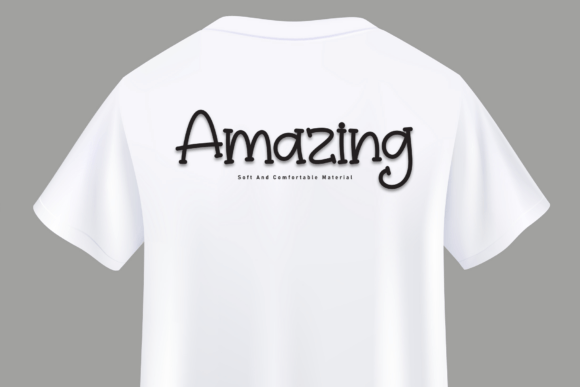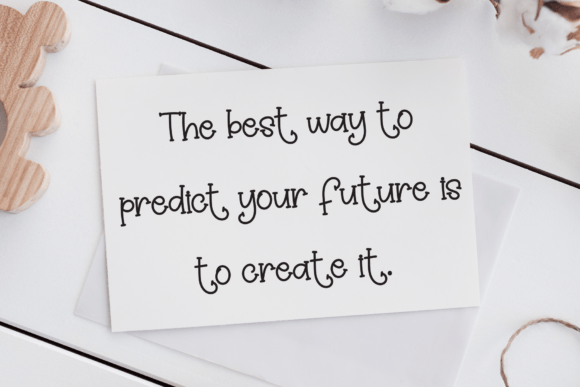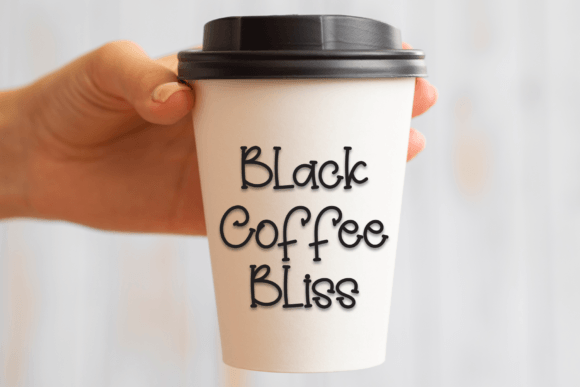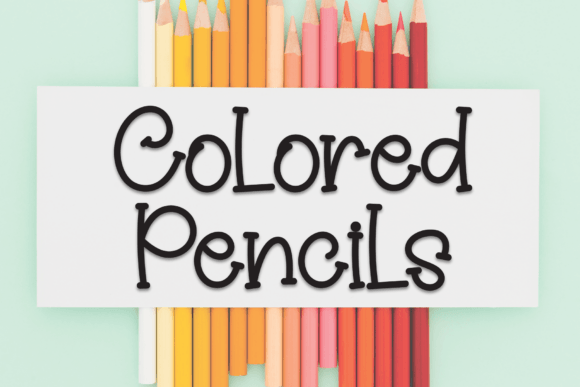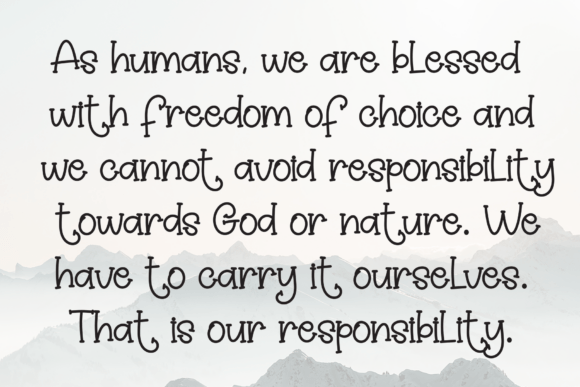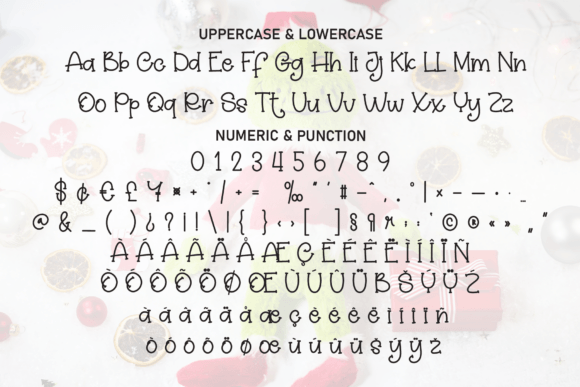
Introducing Grinches Font: The Ultimate Display Font for Adding Warmth and Cheerfulness to Your Designs
Are you tired of using the same old fonts for your designs? Do you want to add a touch of warmth and cheerfulness to your creations? Look no further than Grinches Font, a delightful and charming handwritten display font that is sure to breathe life into any project. In this article, we’ll take a closer look at Grinches Font and explore its features, benefits, and uses.
A Font that Truly Brings Joy and Fun
Grinches Font is a unique and affable font that injects joy and fun into any design. Its playful essence makes it perfect for a variety of projects, from wedding invitations and personal cards to social media graphics and branding materials. With Grinches Font, you can add a personal touch to your designs and make them stand out from the crowd.
Key Features of Grinches Font
- Handwritten Display Font: Grinches Font is a handwritten display font that features a unique and charming style.
- Warm and Cheerful: The font exudes warmth and cheerfulness, making it perfect for designs that require a friendly and approachable tone.
- Playful Essence: Grinches Font has a playful essence that adds a fun and lighthearted touch to any design.
- Versatile: The font is versatile and can be used for a variety of projects, from wedding invitations to social media graphics.
Benefits of Using Grinches Font
So, why should you use Grinches Font for your designs? Here are just a few benefits:
- Adds a Personal Touch: Grinches Font allows you to add a personal touch to your designs, making them more relatable and engaging.
- Enhances Design Narrative: The font effortlessly enhances your design narrative, making it more compelling and interesting.
- Perfect for Branding: Grinches Font is perfect for branding materials, such as logos, business cards, and social media graphics.
Uses of Grinches Font
Grinches Font is a versatile font that can be used for a variety of projects, including:
- Wedding Invitations: The font is perfect for wedding invitations, adding a touch of warmth and romance to your designs.
- Personal Cards: Grinches Font is great for personalizing cards, making them more special and meaningful.
- Social Media Graphics: The font is perfect for social media graphics, adding a playful and engaging touch to your posts.
- Branding Materials: Grinches Font is great for branding materials, such as logos, business cards, and letterheads.
Tips for Using Grinches Font
Here are a few tips for using Grinches Font:
- Use it for Headings: Grinches Font is perfect for headings, adding a touch of warmth and cheerfulness to your designs.
- Experiment with Colors: The font looks great in a variety of colors, so don’t be afraid to experiment and find the perfect color for your design.
- Pair it with Other Fonts: Grinches Font can be paired with other fonts to create a unique and interesting design.
In conclusion, Grinches Font is a delightful and charming handwritten display font that is sure to add warmth and cheerfulness to any design. Its playful essence and versatile nature make it perfect for a variety of projects, from wedding invitations to social media graphics. With its ease of use and range of benefits, Grinches Font is a must-have for any designer or crafter looking to add a personal touch to their designs.